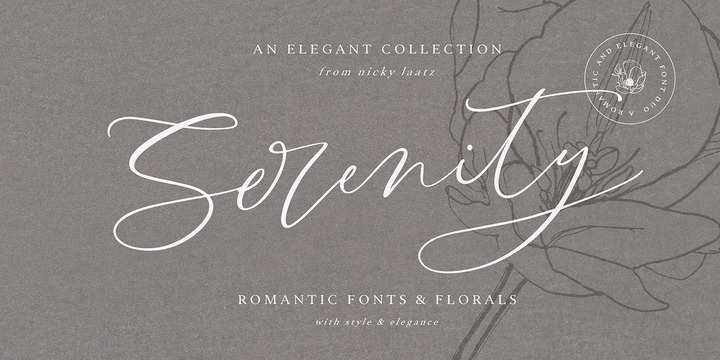
Serenity Font
Serenity Font is ideal for meditation center branding, wellness retreat signage, spa treatment menus, mindfulness app interfaces, yoga studio displays, mental health counseling materials, peaceful sanctuary logos, holistic healing practices, tranquil garden centers, and stress-relief product packaging. This calming typeface brings inner peace and therapeutic tranquility to any wellness-focused design project.
Serenity Font is exciting because it embodies the profound calm and spiritual balance that comes from inner peace, featuring gentle, flowing letterforms that naturally reduce visual stress and create immediate feelings of relaxation. Its tranquil character instantly soothes the mind and promotes the peaceful state essential for healing and personal growth.
The Serenity Font family includes Ultra Light, Light, Regular, Medium, and Bold weights with soft italics, plus zen-inspired alternates, peaceful flourishes, and mindfulness symbols that enhance the therapeutic aesthetic, providing wellness designers with comprehensive tools for creating typography that actively promotes calm and emotional well-being.
Wellness designers love Serenity Font for its exceptional ability to reduce anxiety and promote relaxation through carefully balanced letterforms. The font's gentle character and harmonious spacing create immediate psychological associations with peace, safety, and the therapeutic environments where healing begins, making it perfect for brands focused on mental health and emotional well-being.
The design philosophy behind Serenity Font celebrates the fundamental human need for peace and the therapeutic power of calm environments, making it particularly effective for mental health services, stress-reduction programs, and holistic wellness practices. Healthcare teams working on therapeutic communications find this font essential for creating safe, welcoming spaces.
Whether used for meditation apps, therapeutic counseling centers, or peaceful retreat experiences, Serenity Font delivers the perfect balance of visual calm and emotional support. Its healing appeal and therapeutic authenticity make it an indispensable choice for organizations dedicated to promoting mental wellness, inner peace, and the restoration of emotional balance.